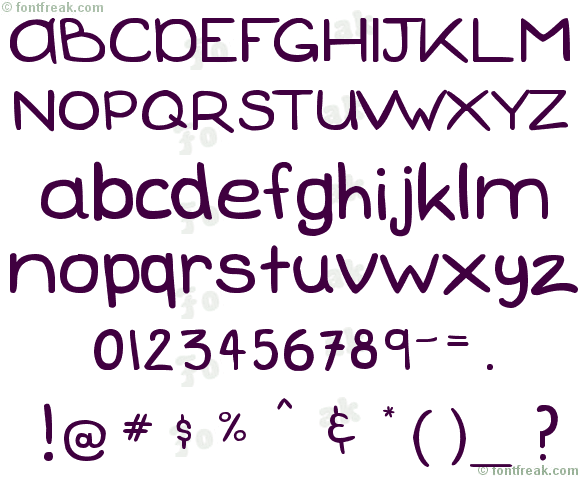
What Do We Do All Day
About What Do We Do All Day
The "What Do We Do All Day" font by Heather T. is a playful and engaging handwritten typeface that captures a sense of whimsy and creativity. This font boasts a medium stroke weight with a consistent flow, making it both legible and visually appealing. Its rounded edges and slight irregularities give it a personal touch, reminiscent of natural handwriting. The spacing is comfortably balanced, ensuring that each letter stands out while still maintaining a cohesive look. This typeface is versatile and can be used in various contexts, particularly for projects that require a friendly and approachable tone.
Ideal use cases for the "What Do We Do All Day" font include wedding invitations, where its charming style can set a lighthearted and joyful mood. It is also well-suited for children's book covers, allowing for an inviting and imaginative feel that appeals to young readers. Additionally, this font can enhance restaurant menus, giving them a casual yet stylish flair that makes the dining experience feel more personal. Graphic designers and content creators will find this font perfect for social media graphics, ads, and promotional materials, as it draws attention while maintaining readability.
What truly sets this font apart is its ability to evoke a warm, friendly atmosphere while remaining functional across various applications. With its charming aesthetics and versatility, "What Do We Do All Day" is a delightful addition to any designer's toolkit.